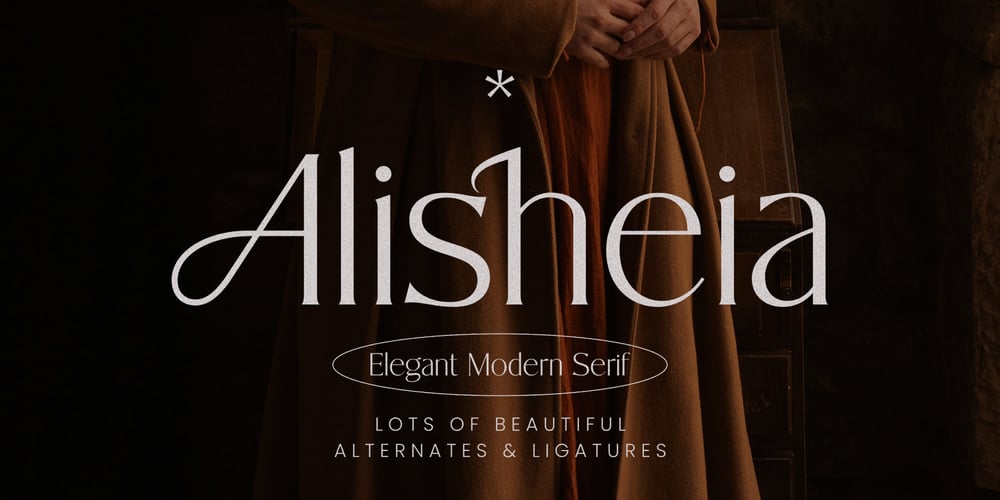
Alisheia Font Family was designed by Zahratul Laila and published by Dora Typefoundry. Alisheia contains 1 styles and family package options. Trendy, classy & modern stylish serif font for your luxury projects. The elegant, fashion, and classic style of the Alisheia font will be perfect for branding projects, logos, invitations, masterheads, and more. This font has many alternatives and binders will help you create a unique and original logo or website header design!Features: – All Caps Font with different uppercase and lowercase – Number & Symbol – Supported Languages – Alternates and Ligatures – PUA Encoded We highly recommend using a program that supports OpenType features and Glyphs panels like Adobe apps and Corel Draw, so you can see and access all Glyph variations.This type of family has become the work of true love, making it as easy and fun as possible.I really hope you enjoy it!Thank you Enjoy the font and go get creative ๐